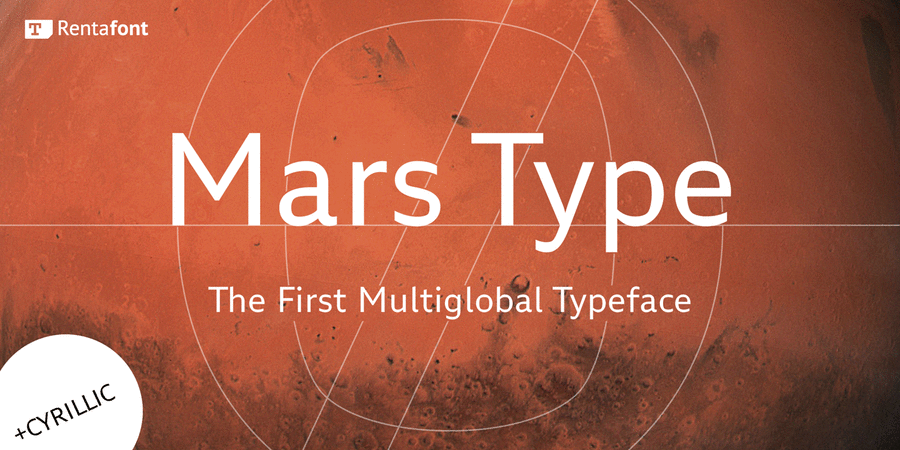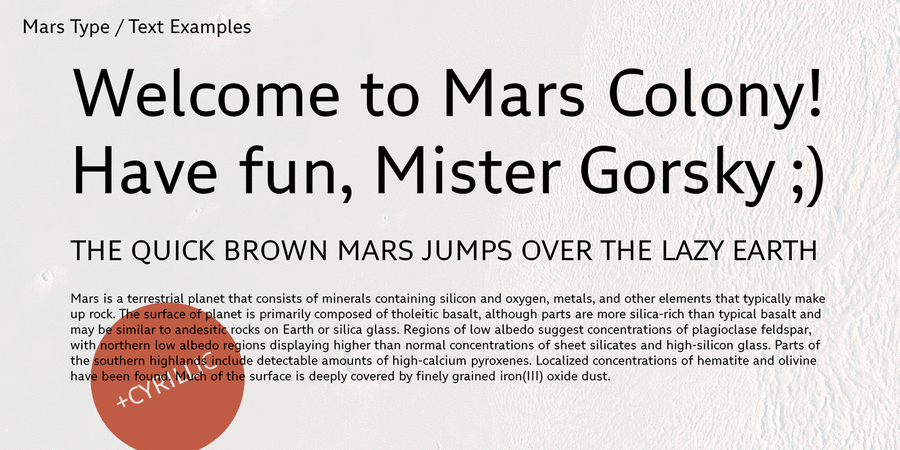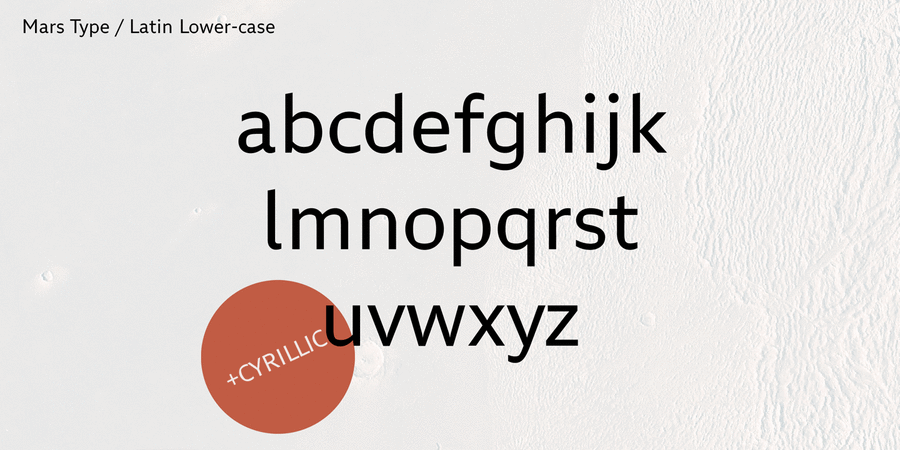
Mars Type is sans serif with open counters and other features that enhance its recognizability and readability. Ideal for way finding and interfaces in the Martian colony. The main feature of the font is a special form of oval characters (perfect circle outside, "porthole" inside) and the axis of some characters (eg. slash) that corresponds with the angle of the Mars axial tilt – 25.19°. Vertically cut finials, as in Futura or Gill Sans, allow the new font to have a high capacity, as in humanistic sans serifs, but maintain visible geometric look. Mars Type was designed by Yevgen Sadko in 2018-2019 and released on https://rentafont.com under SIL Open Font License (OFL)
Associations for font family Mars TypeTypeface personality and character:
urban, modern, laconic, accurate, strict, clear, flat, high-quality, simple, serious, calm, crisp, cutting, solid, globalized, clever, globalistic, engineering, schematic, space, convincing, practical, pragmatic, technically, urbanistic, logical, smooth, comfortable, low key
Typeface exhibits stylistic traits: